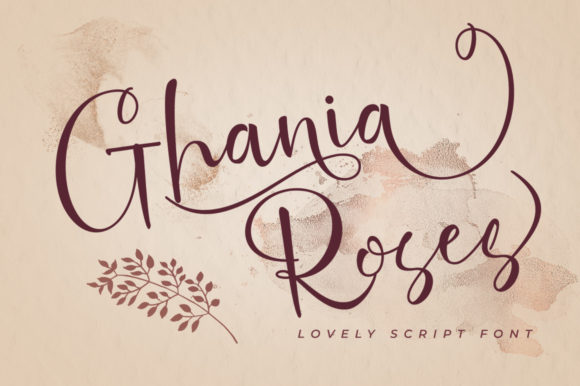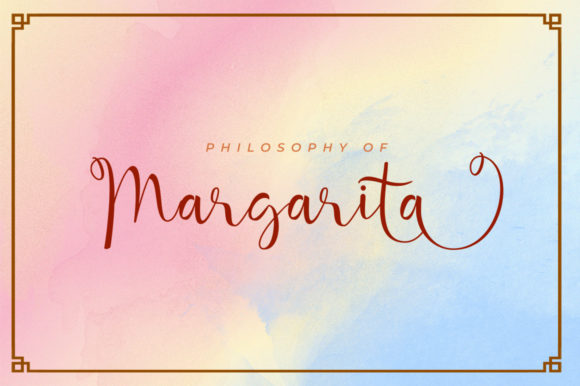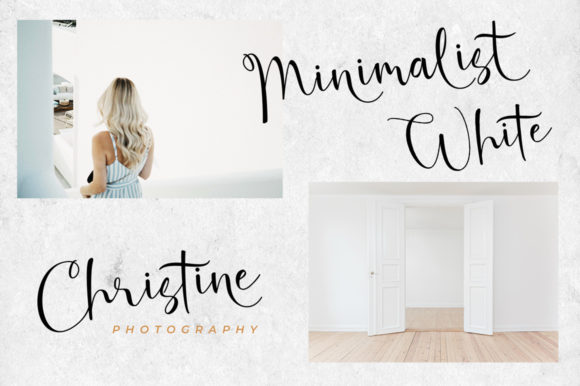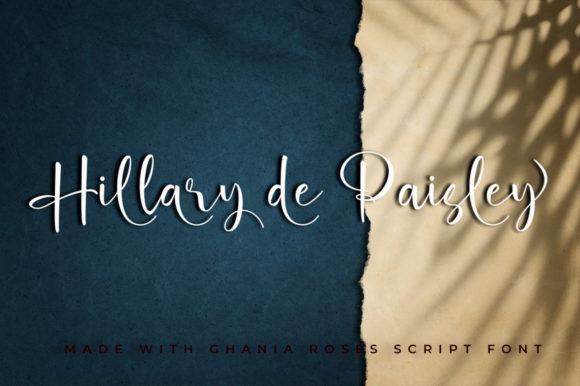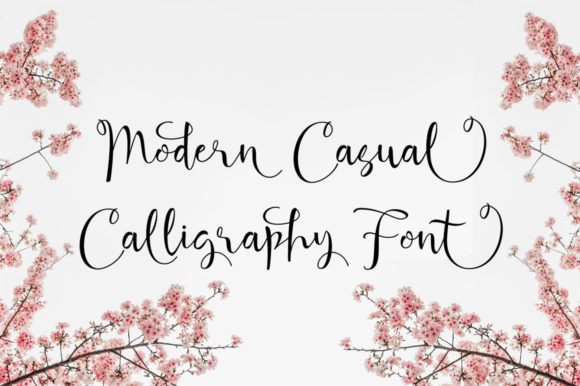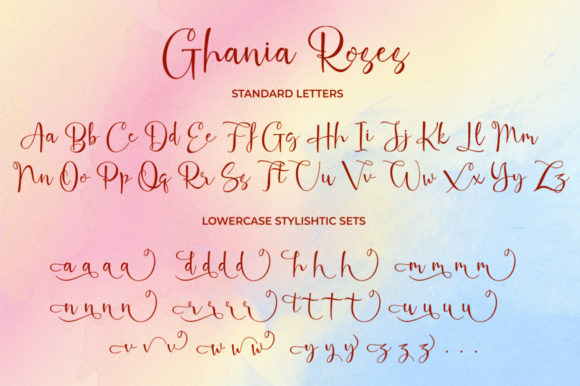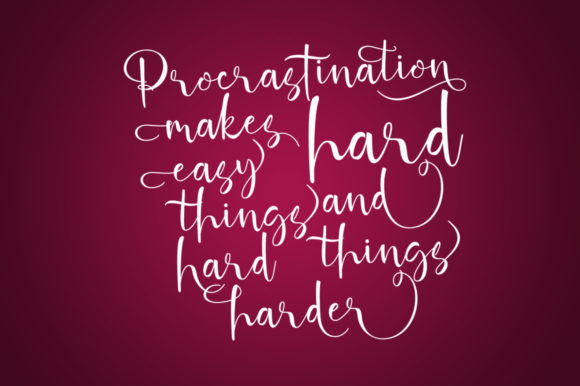
Ghania Roses Font
About Ghania Roses Font
Ghania Roses is a sweet, soft hand-lettered script. The playful rounded characters make it the perfect font for creating stunning calligraphy art. Ghania Roses comes packed with PUA encoded swashes, that will allow you to add a decorative touch within seconds. It comes in both as a TTF and OTF. Get inspired by its authentic feel and use it to create gorgeous wedding invitations, beautiful stationary art, eye-catching social media posts, and cute greeting cards.